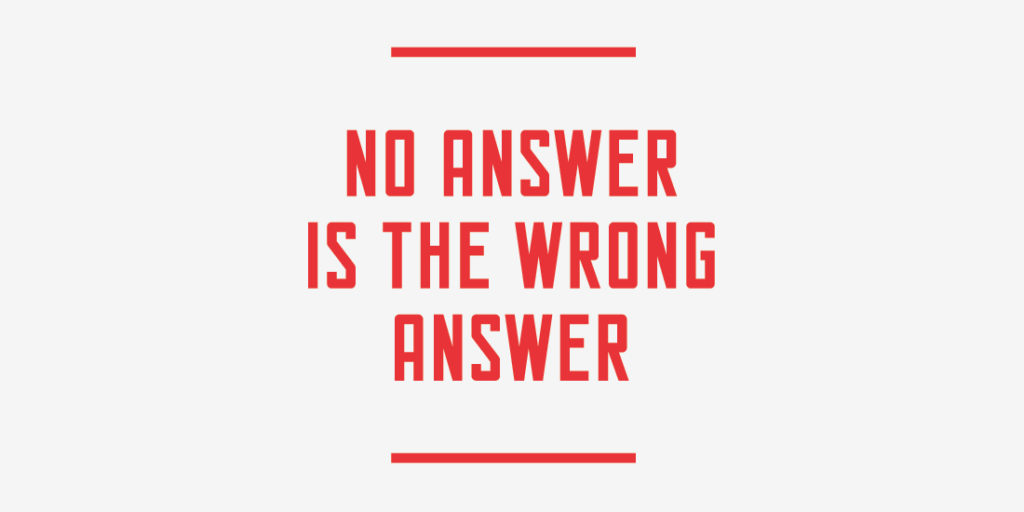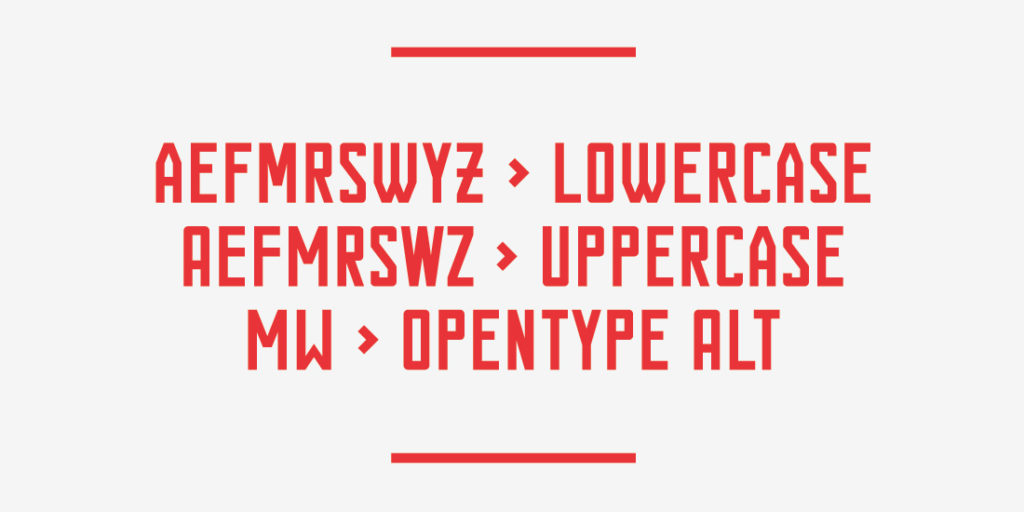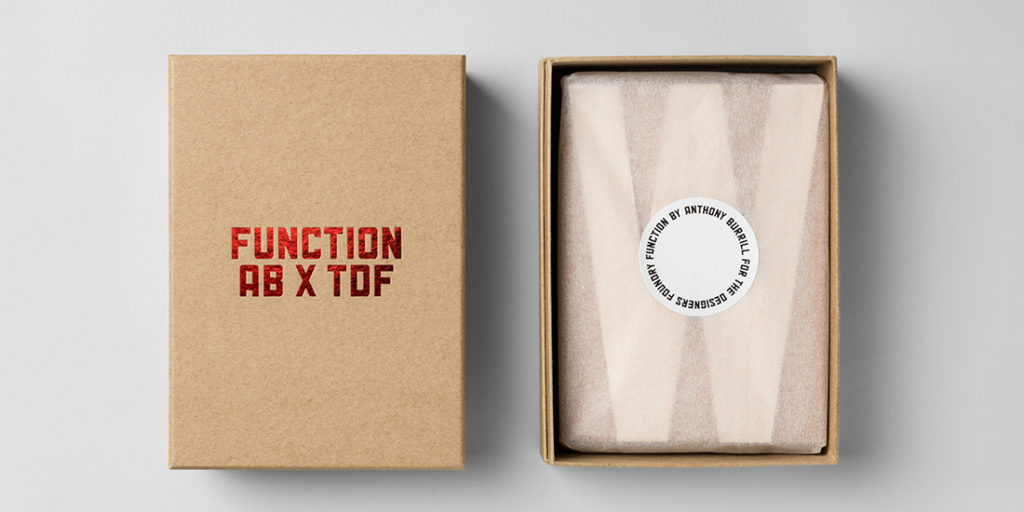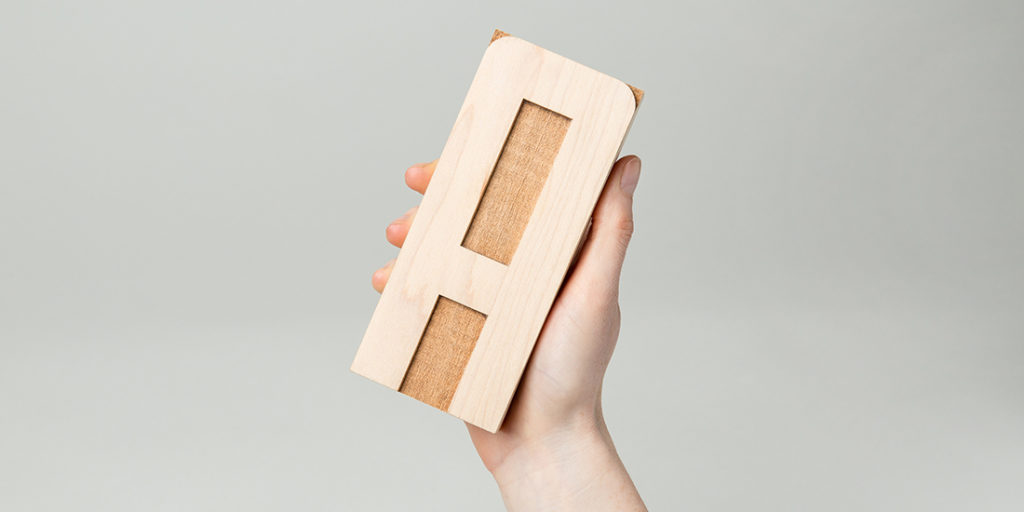
Name: Function
Designer: Anthony Burrill and Daniel McQueen
Foundry: The Designers Foundry
Release Date: October 2016
Back story: “Function almost tries to emulate a typeface that people who don’t know how to design a typeface would draw,” says McQueen, TDF’s founder. “It’s an idea I’ve been exploring on and off for years. One inspiration was the temporary lot in [London’s] Shoreditch opposite the Village Underground, which had ‘Car Park’ painted on it in big letters.” As part of the collaboration between McQueen and Burrill, a wooden type alphabet made by Thomas Mayo is being auctioned for charity (one letter at a time!) via The Designers Foundry. In addition to the font itself, the project also includes a letterpress-printed poster.
Why’s it called Function? “There’s nothing overtly finessed—it’s intentionally chunky, brutal, and functional,” McQueen says.
What are its distinguishing characteristics? This grid-based, all caps typeface, reminiscent of early 20th-century Constructivist poster fonts, possesses a clumsy adolescent charm. Less self-conscious than the average teenager, it manages to celebrate its awkward, even ugly qualities. It’s available in Regular and Condensed weights, with alternates for several characters. McQueen and Burrill love the alternates for A and W, though the range of options on the M are pretty great, too, as are the understated differences in crossbars on the F and E.
What should I use it for? “We’d love to see it used in large formats, huge titles, billboards, and the like,” says McQueen. How about some outdoor signs painted on directly on brick walls, staying true to Function’s roots? Meanwhile, until someone takes up the challenge, it also works nicely for logos and editorial purposes.
Who’s it friends with? It plays well with Gordita, or try Idlewild, especially in the hairline weights for maximum contrast.